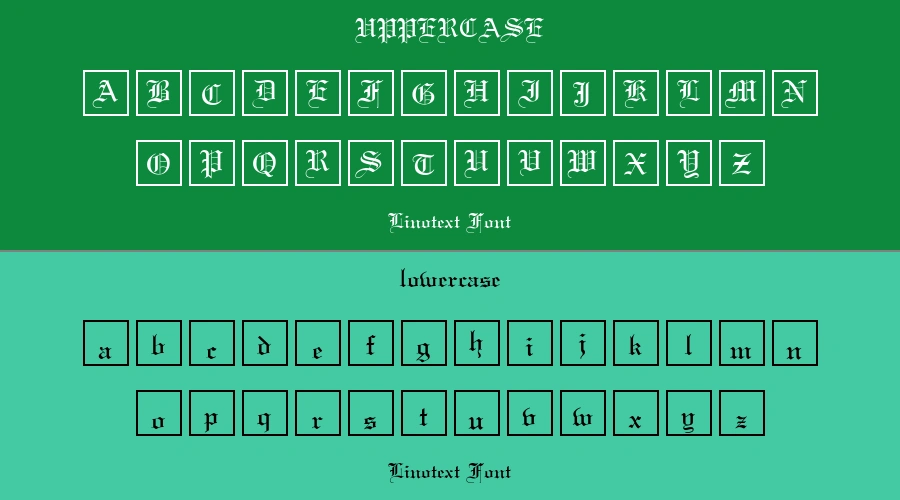
About Linotext Font
Linotext Font represents a sophisticated approach to type design, balancing playful elements with technical precision. Perfect for album artwork, this font family showcases impressive consistency and refinement throughout its character set. Designers appreciate its versatility and reliability.
Designers will appreciate nuanced touches including dramatic swashes and arrow sets, adding sophistication to any project. These features become apparent in exhibition materials, where footnote clarity matters most. The careful treatment of stroke modulation and historical references ensures optimal performance.